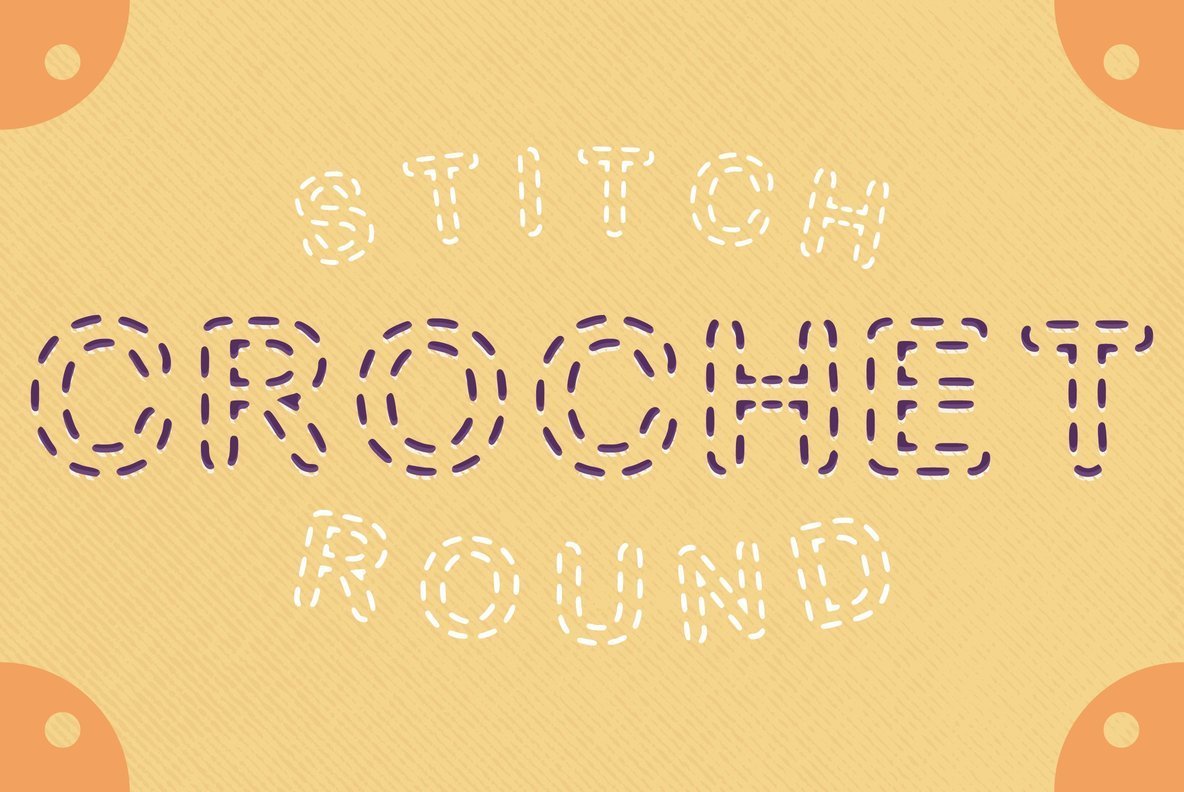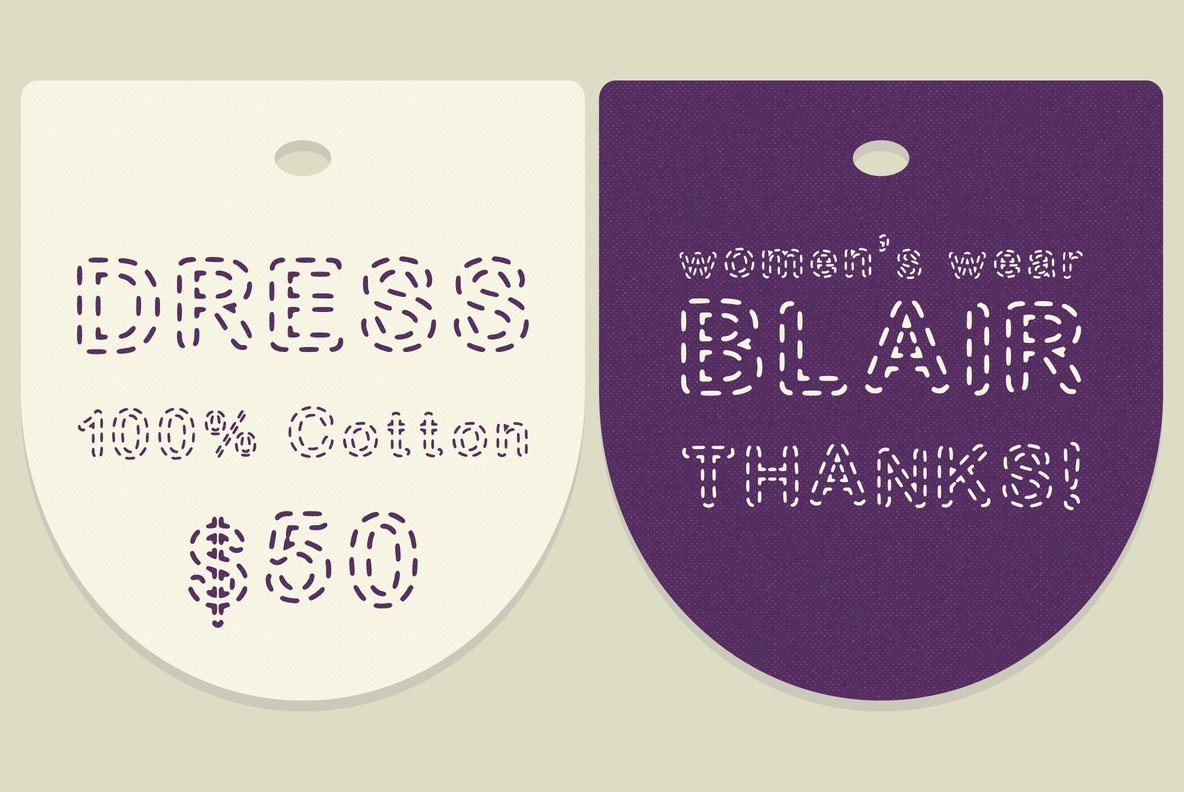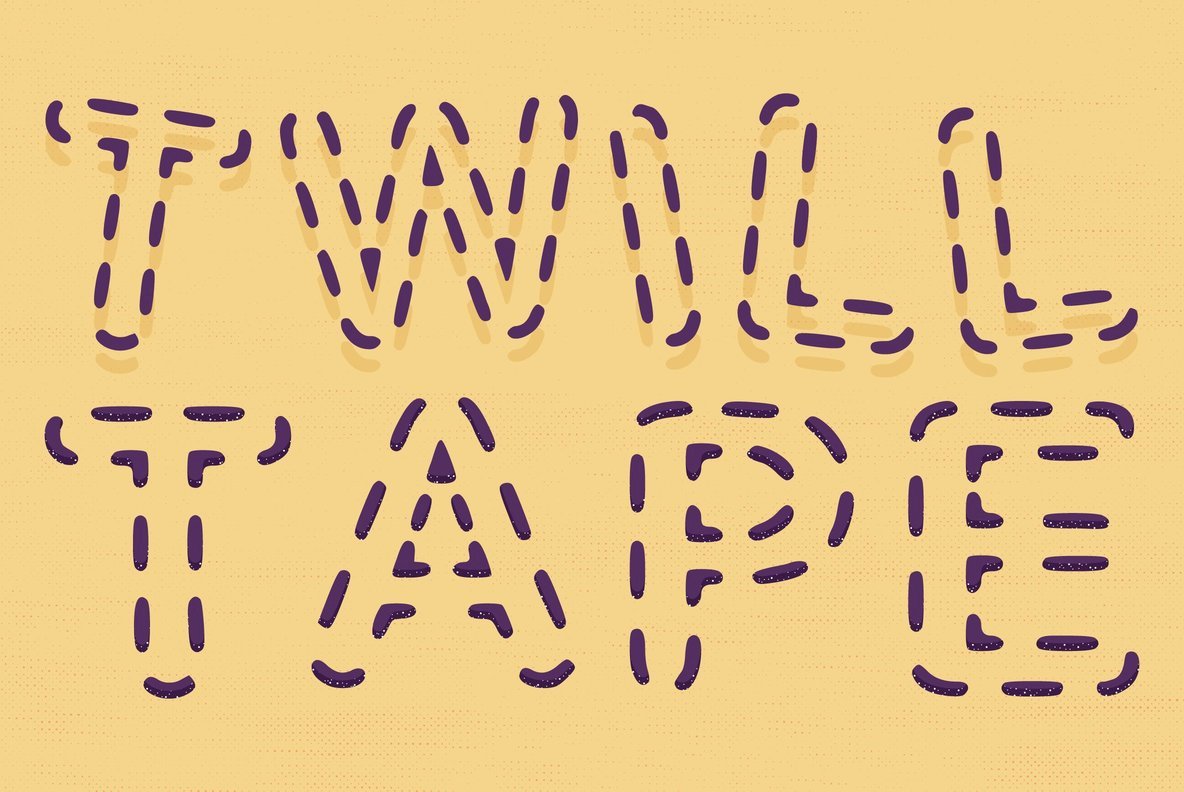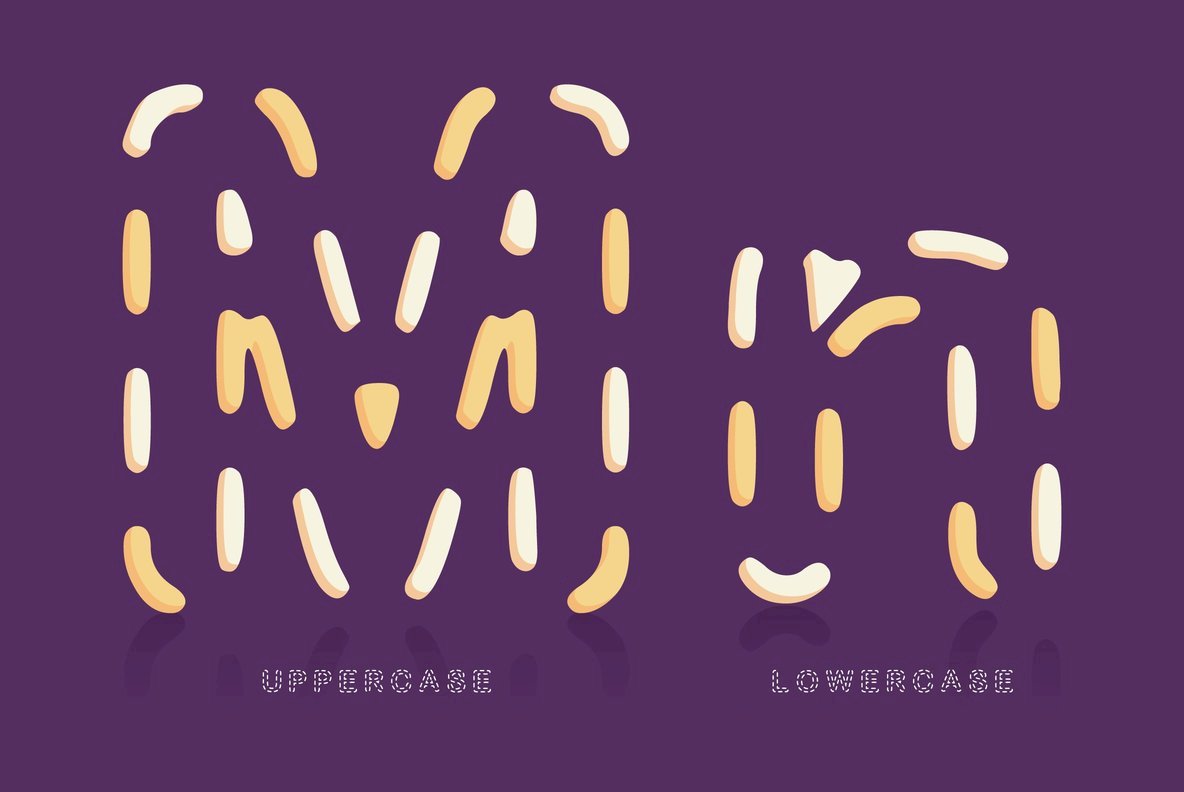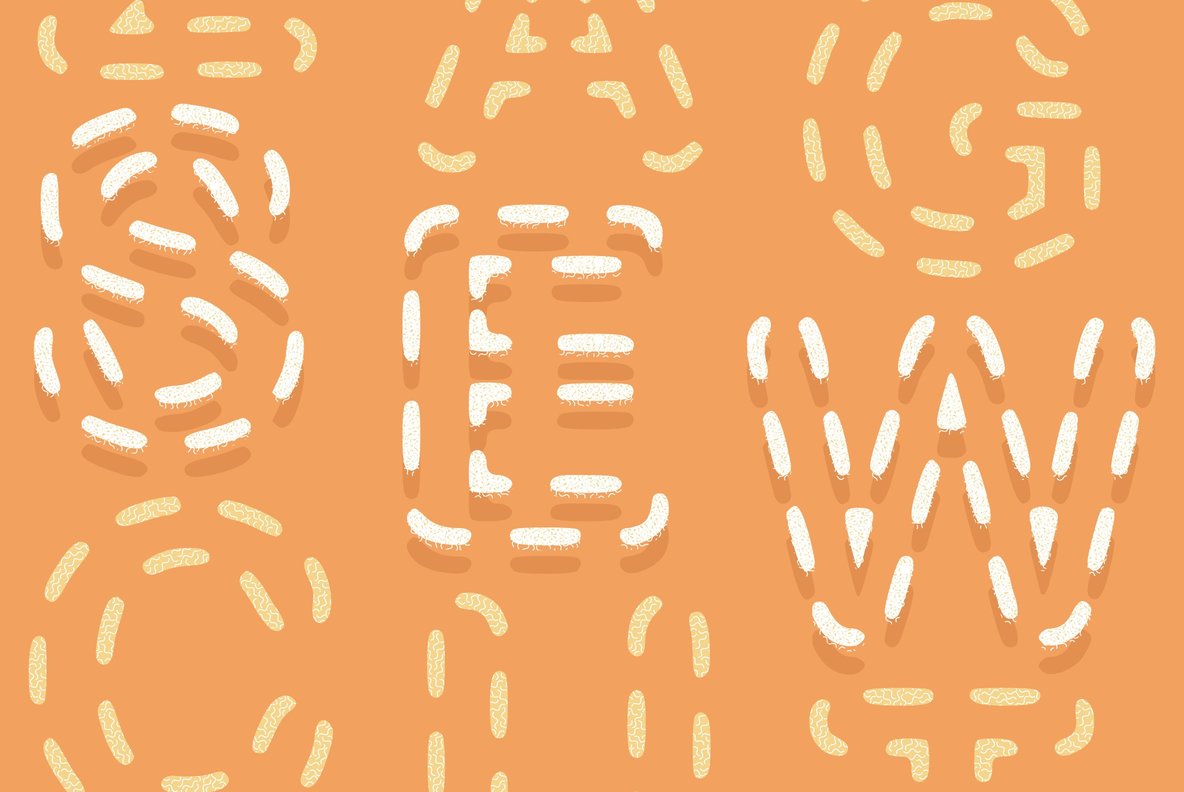
Stitch Round Font
Stitch Round
Stitched (dashed) font with rounded edges. For a causal craft look in upper and lowercase with numbers.
This font was created by Benjamin A Melville and features a full upper and lower case alphabet including 0-9 and some punctuation, please see glyphs list for all characters you will be able to work with.